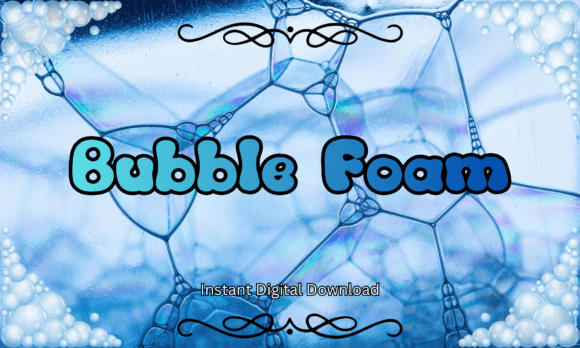
Add a Fun, Bubbly Vibe to Your Designs with Bubble Foam Font 🫧✨
Have you ever been working on a design project, and suddenly, you just can’t seem to find the right font? You’re not alone! I recall a recent project where I needed a font that would capture the playful essence of a kids’ brand. After hours of searching, I stumbled upon Bubble Foam, a soft rounded display font that instantly brought my design to life. In this article, we’ll dive into the world of Bubble Foam, exploring its features, uses, and some helpful tips and tricks for getting the most out of this delightful font.
What is Bubble Foam Font?
Bubble Foam is a digital font inspired by soap bubbles and playful textures, perfect for adding a fun, bubbly vibe to your designs. This font is characterized by its rounded and soft edges, clean and bold readability, and a cute, playful aesthetic that makes it ideal for stickers, branding, and creative projects.
Perfect Use Cases
Bubble Foam is perfect for a variety of design projects, including:
- Stickers & decals
- Kids designs & playful brands
- Small business logos
- Packaging & labels
- T-shirts & apparel
- Social media graphics
- Wall art
- Sublimation designs
So, what do I love about Bubble Foam? 🤔 Here are a few highlights:
- ✨ Clean and playful design: The font’s rounded edges and soft curves make it a joy to use for kids’ designs and playful brands.
- ✅ Easy to read: Despite its playful nature, Bubble Foam remains clear and readable, even at smaller sizes.
- 💕 Cute and whimsical: This font is sure to bring a smile to your face and a touch of whimsy to your designs.
As for quirks or limitations, here are a few to keep in mind:
- ⚠️ Limited use for formal designs: Bubble Foam’s playful nature makes it less suitable for formal or professional designs.
- 🤔 Glyph variety: While the font comes with a range of standard characters, it may not have extensive glyph support for non-English languages.
The Story Behind Bubble Foam
The inspiration behind Bubble Foam comes from the simple joys of childhood – playing with soap bubbles, watching them float gently through the air, and marveling at their iridescent beauty. The font’s designer aimed to capture this sense of wonder and playfulness, creating a typeface that’s both fun and functional.
Q: Is Bubble Foam suitable for body text?
A: While Bubble Foam is a beautiful font, its playful nature makes it more suitable for headings, titles, and short text passages. For body text, you may prefer a more traditional font.